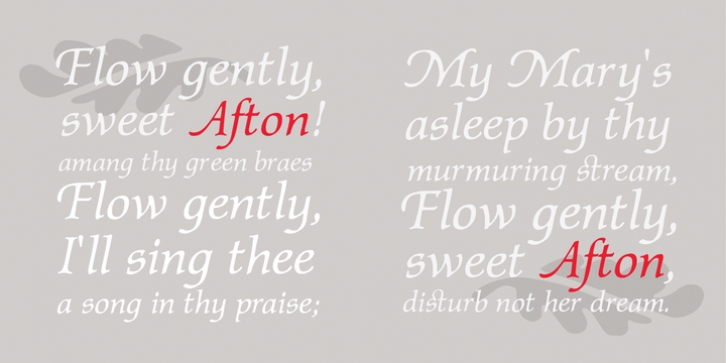
Ted Staunton
IHOF
A cursive font with a curvilinear feel, named for the Scottish stream immortalized by the poet Robert Burns. Useful for menus, certificates, display lines, short paragraphs or poetry setting.